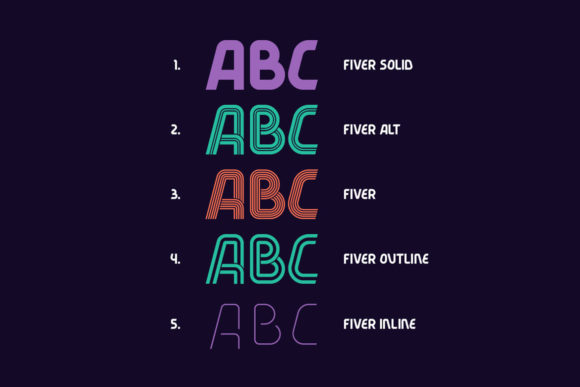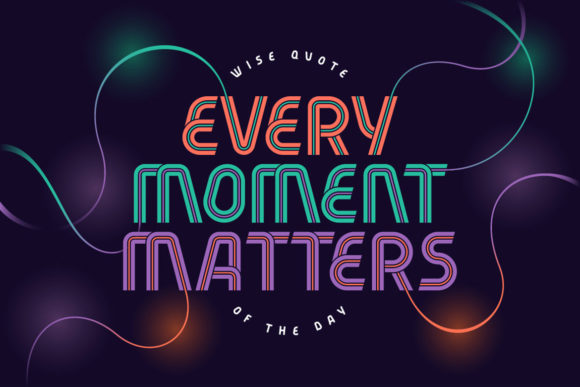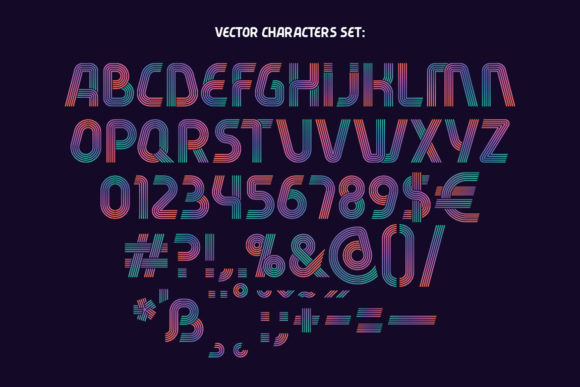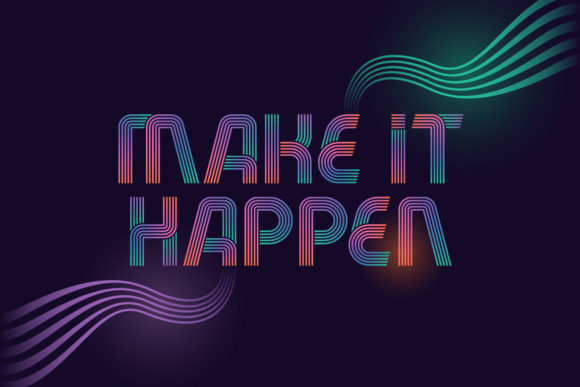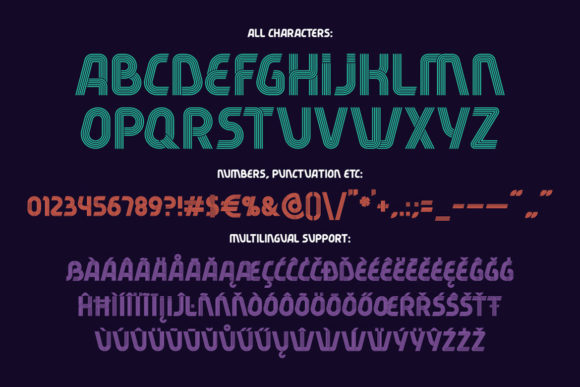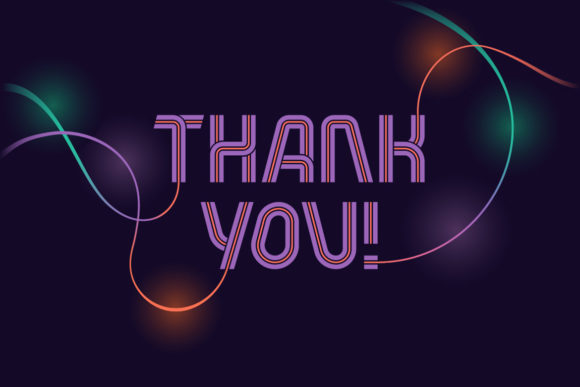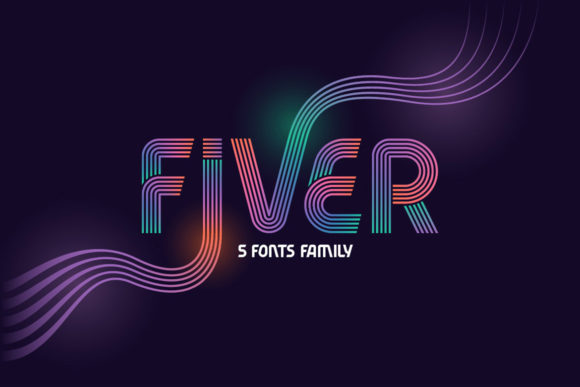
Fiver Font: Elevate Your Designs with a Bold and Wavy Display Font
Are you tired of using the same old fonts in your designs? Look no further than the Fiver Font, a bold and wavy display font that’s sure to take your creations to the next level. With its modern and cool looking touch, this font is perfect for designers and crafters who want to add a unique flair to their work.
What Makes Fiver Font So Special?
Fiver Font is a standout in the world of typography, and for good reason. Its bold and wavy design gives it a distinctive look that’s sure to grab attention. But what really sets it apart is its PUA (Private Use Area) encoding. This means that you can access all of the glyphs and swashes with ease, giving you unparalleled creative control over your designs.
Key Features of Fiver Font
- Bold and Wavy Design: Fiver Font’s unique design makes it perfect for headlines, titles, and other display text.
- Modern and Cool Looking Touch: This font’s modern aesthetic ensures that your designs will look fresh and contemporary.
- PUA Encoded: With PUA encoding, you can access all of the glyphs and swashes with ease, giving you maximum creative flexibility.
Uses for Fiver Font
Fiver Font is a versatile font that can be used in a wide range of design applications. Here are just a few ideas to get you started:
- Logos and Branding: Fiver Font’s bold and wavy design makes it perfect for logos and branding materials.
- Headlines and Titles: Use Fiver Font to add a touch of personality to your headlines and titles.
- Signage and Posters: This font’s bold design ensures that your signage and posters will stand out from the crowd.
- Digital Media: Fiver Font can also be used in digital media, such as video titles, social media graphics, and more.
Tips for Using Fiver Font
To get the most out of Fiver Font, here are a few tips to keep in mind:
- Experiment with Different Sizes: Fiver Font looks great in a variety of sizes, so don’t be afraid to experiment to find the perfect fit for your design.
- Play with Swashes and Glyphs: With PUA encoding, you can access a wide range of swashes and glyphs to add extra flair to your designs.
- Pair with Other Fonts: Fiver Font also pairs well with other fonts, so don’t be afraid to get creative with your font combinations.